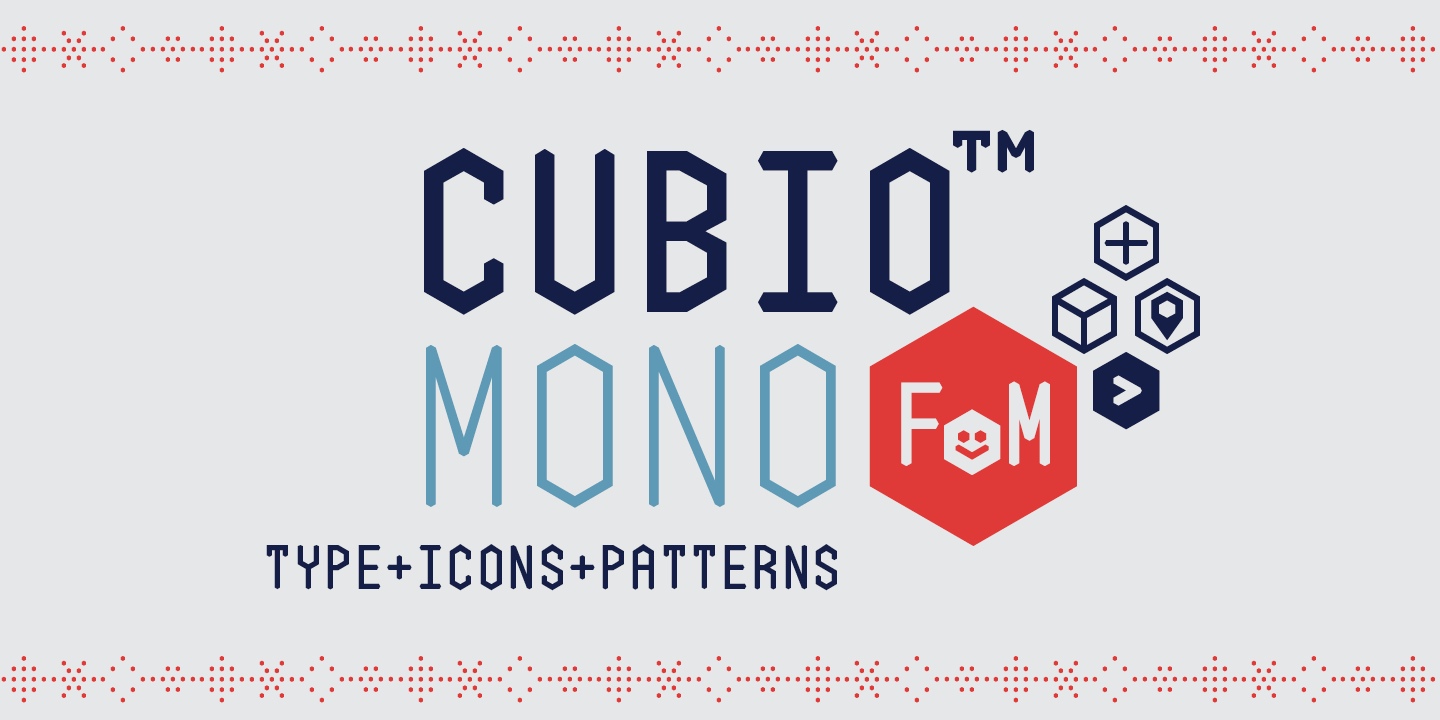
Cubio Mono Font
This Cubio Mono Font is perfect for coding environments, terminal applications, programming documentation, tech startup branding, software interfaces, digital dashboards, cyberpunk designs, futuristic logos, gaming UI elements, and monospace typography projects.
What makes this Cubio Mono Font exciting is its perfect fusion of geometric precision and monospace functionality. The font features distinctive cubic letterforms that maintain consistent character width while delivering exceptional readability in code editors and technical applications. Its futuristic aesthetic combined with practical monospace properties makes it ideal for developers and designers seeking both style and functionality.
The Cubio Mono Font family includes regular, medium, and bold weights with optional stylistic alternates. This comprehensive monospace font family provides programmers and designers with the flexibility to create clear code hierarchies while maintaining the uniform spacing essential for programming environments and technical documentation.
The architectural structure of Cubio Mono Font ensures optimal performance in both IDE environments and display applications. Its carefully engineered letterforms provide excellent character distinction, reducing coding errors while maintaining the visual consistency that monospace fonts are renowned for in programming contexts.
Professional developers appreciate how Cubio Mono Font combines functional excellence with distinctive personality. The font's geometric character set offers superior legibility during extended coding sessions while adding a modern edge that elevates the visual appeal of technical interfaces and developer tools.
The versatile applications of Cubio Mono Font extend beyond traditional coding environments into creative projects requiring monospace precision. Its unique cubic aesthetic makes it particularly effective for retro-futuristic designs, gaming interfaces, and tech-oriented branding that demands both functionality and visual impact.